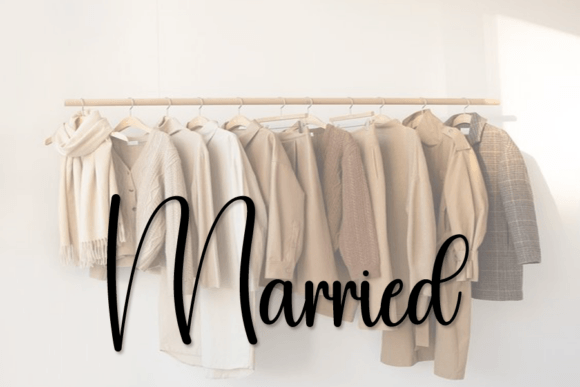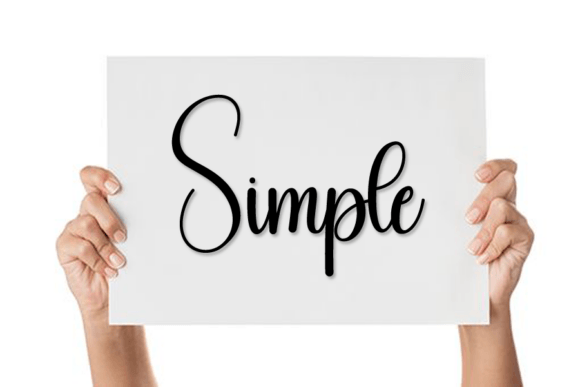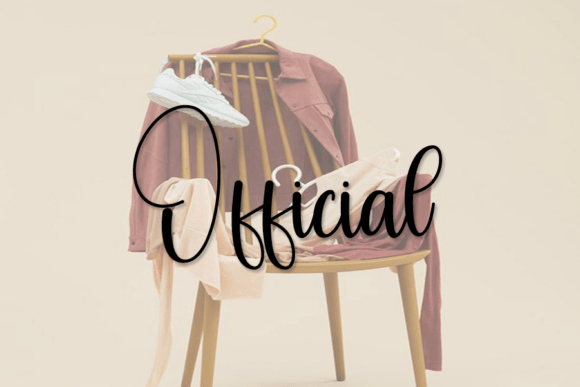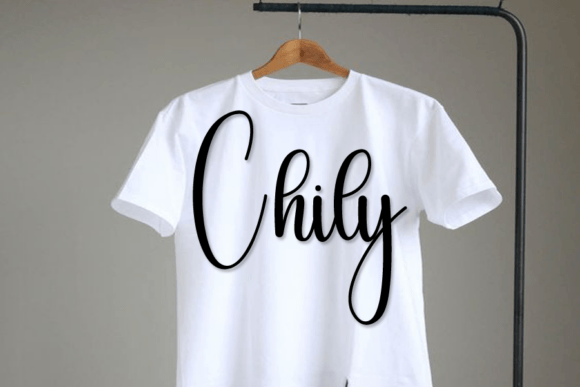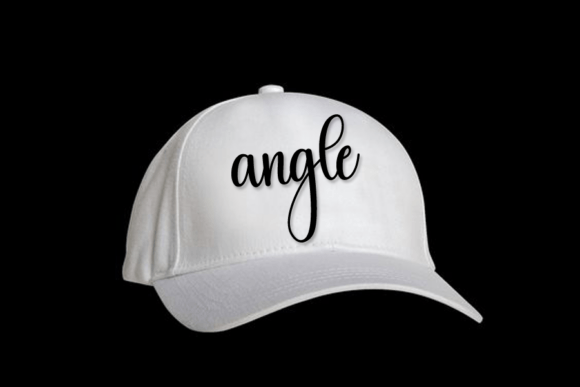
Daddy Handsome Font: The Ultimate Choice for Creative Designers
Are you a designer or crafter looking for a font that exudes simplicity, elegance, and a touch of playfulness? Look no further than the Daddy Handsome Font. This classic and simple handwritten script is perfect for a wide range of creative projects, from logotypes and headlines to apparel, posters, and digital media.
What Makes Daddy Handsome Font So Special?
Daddy Handsome Font is a unique and versatile typeface that has been created in a random and free style. Its simplicity and elegance make it an excellent choice for designers who want to add a personal touch to their work. The font’s handwritten script style gives it a warm and approachable feel, making it perfect for projects that require a friendly and inviting tone.
Uses of Daddy Handsome Font
The Daddy Handsome Font is suitable for a wide range of creative projects, including:
- Logotype and Branding: Create a lasting impression with a custom logotype that showcases your brand’s personality.
- Headline Font: Use Daddy Handsome Font to create eye-catching headlines that grab attention.
- Corporate Identity: Establish a strong brand identity with a consistent typography that reflects your company’s values.
- Brand Identity: Develop a unique brand voice with Daddy Handsome Font that resonates with your target audience.
- Apparel Industry: Design stylish and trendy apparel with Daddy Handsome Font that appeals to fashion enthusiasts.
- Poster and Print Design: Create stunning posters, flyers, and brochures that showcase your creativity.
- Music, Movie, and Game: Add a touch of personality to your music, movie, or game with Daddy Handsome Font.
- Magazine and Book: Use Daddy Handsome Font to create engaging and readable content for your magazine or book.
- Comic and Cartoon: Bring your comic or cartoon characters to life with Daddy Handsome Font.
- YouTube and Instagram: Create visually appealing thumbnails and social media posts with Daddy Handsome Font.
- Website: Enhance your website’s typography with Daddy Handsome Font and create a lasting impression on your visitors.
Why Choose Daddy Handsome Font?
There are several reasons why Daddy Handsome Font stands out from the rest:
- Unique and Versatile: Daddy Handsome Font is a one-of-a-kind typeface that can be used for a wide range of creative projects.
- Easy to Read: The font’s clear and legible design makes it easy to read, even at small sizes.
- Customizable: Daddy Handsome Font can be customized to fit your project’s specific needs.
- Time-Saving: With Daddy Handsome Font, you can save time and effort in creating custom typography for your projects.
Tips for Using Daddy Handsome Font
Here are some tips to help you get the most out of Daddy Handsome Font:
- Experiment with Different Sizes: Daddy Handsome Font looks great at various sizes, so don’t be afraid to experiment and find the perfect size for your project.
- Pair with Other Fonts: Combine Daddy Handsome Font with other fonts to create a unique and visually appealing typography.
- Use in Combination with Images: Daddy Handsome Font looks great when paired with images, so try using it in combination with your favorite photos or illustrations.
| Font Name | Daddy Handsome Font |
| Author | Abadi letter |